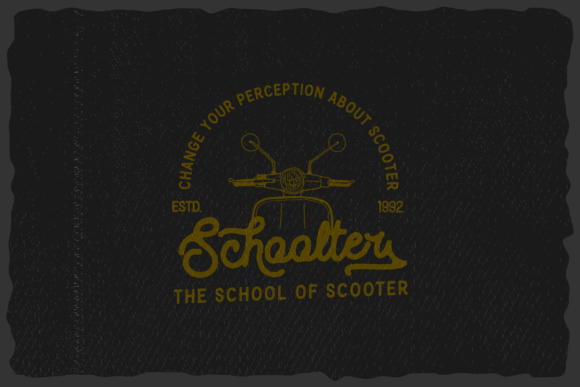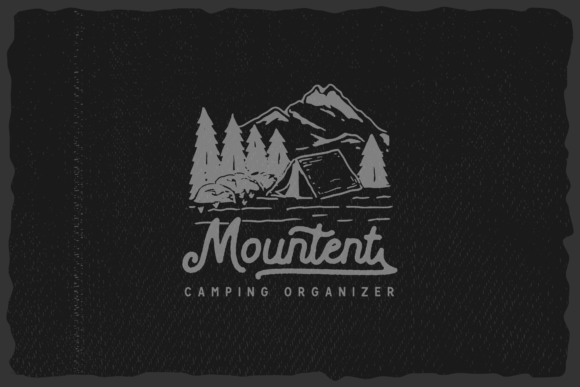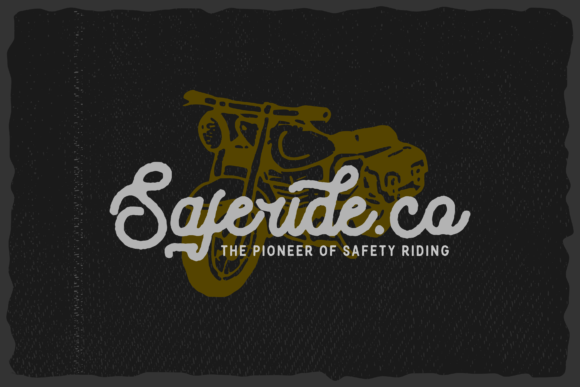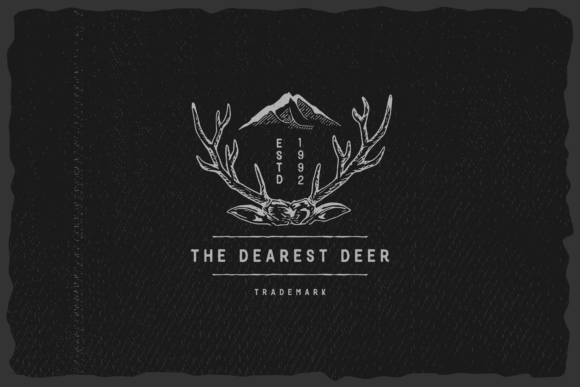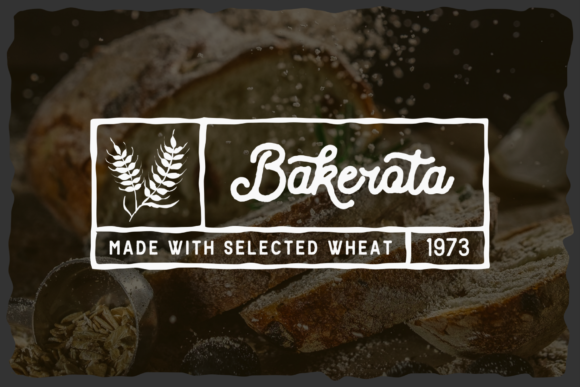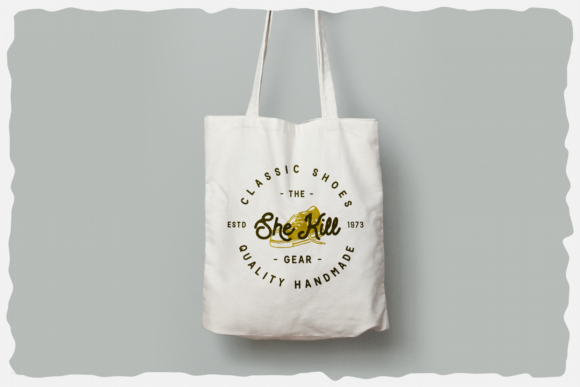
The Designer’s Delight: Uncovering the Charm of Blackcode Font
I’ll never forget the time I was working on a vintage-themed project for a client, and I just couldn’t seem to find the right font to bring it all together. The design was almost there, but it was missing that one special something to make it pop. That’s when I stumbled upon Blackcode Font, and let me tell you, it was love at first sight! 💕
This carefully designed vintage font with a unique bold twist has been a game-changer for my design projects, and I’m excited to share its awesomeness with you. In this article, we’ll dive into the world of Blackcode Font, exploring its features, how to use it, and some similar fonts you might love.
So, what makes Blackcode Font so special? Here are some things I love about it:
• ✨ Unique and bold: Blackcode Font has a distinctive style that’s sure to turn heads. Its bold twist on a vintage font makes it perfect for display purposes.
• ✅ Highly legible: Despite its boldness, the font remains highly legible, even at smaller sizes.
• 💥 Versatile: Blackcode Font can be used for a wide range of projects, from posters and flyers to logos and branding.
Of course, no font is perfect, and Blackcode Font has a few small quirks:
• 🤔 Limited use for body text: While Blackcode Font is amazing for display purposes, it’s not the best choice for body text. It’s a bit too bold and might be overwhelming for longer blocks of text.
• ⚠️ Some glyphs may not work well in all applications: I’ve noticed that some glyphs and special characters might not work as expected in certain design software. Just something to keep in mind!
Blackcode Font was created with the goal of bringing a unique, bold twist to traditional vintage fonts. Its designer drew inspiration from classic typography and modern design trends to create a font that’s both nostalgic and fresh. While the designer’s identity might be unknown, their passion for typography and design shines through in every detail of Blackcode Font.
Q: What type of projects is Blackcode Font best suited for?
A: Blackcode Font is perfect for display purposes, such as posters, flyers, logos, and branding.
Q: Can I use Blackcode Font for body text?
A: While possible, Blackcode Font might not be the best choice for body text due to its boldness. It’s better suited for headlines and titles.
Q: Is Blackcode Font compatible with all design software?
A: Mostly, but some glyphs and special characters might not work as expected in certain applications. Always test the font in your design software before starting a project.